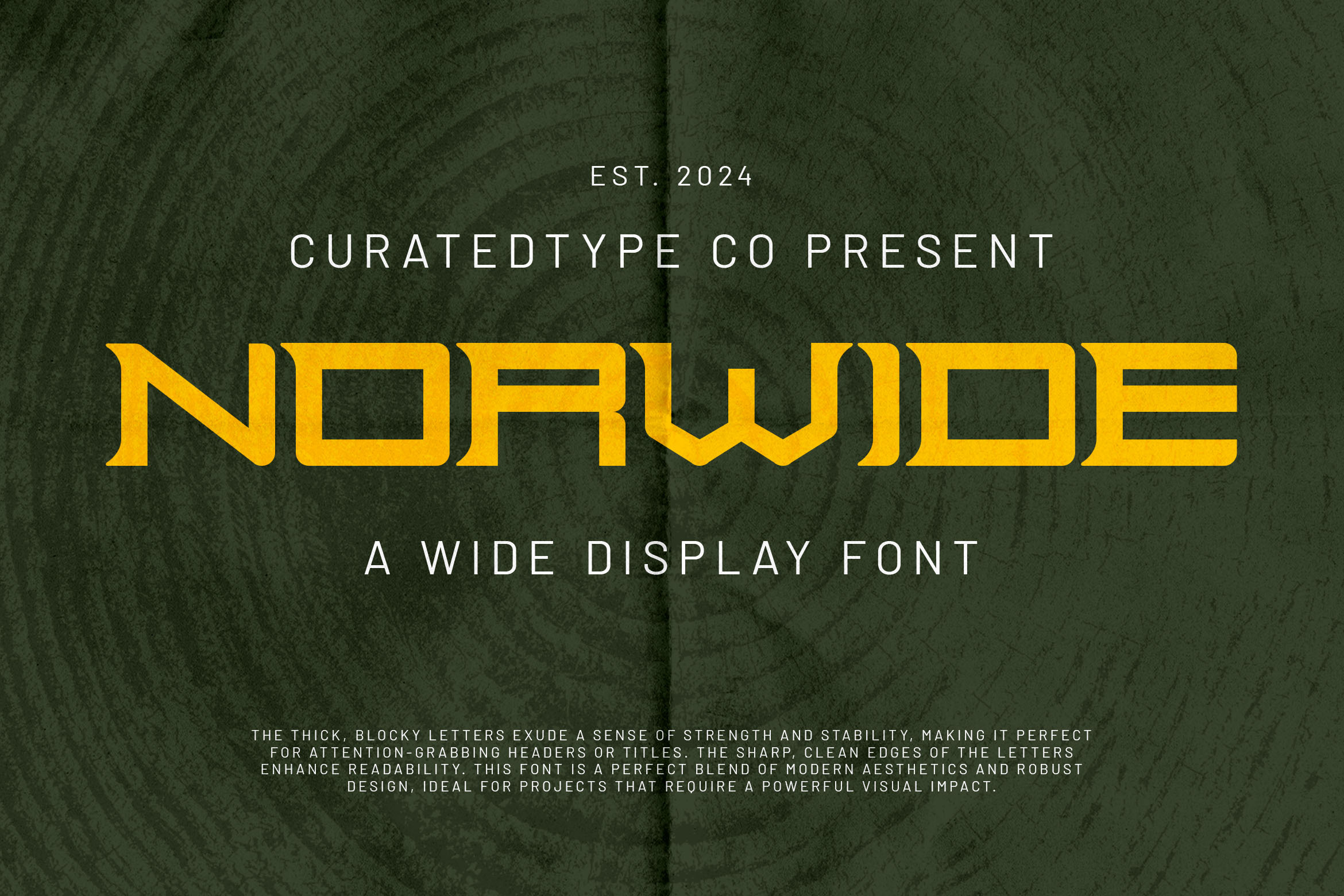
Norwide - Wide Display Font
Norwide is a expanded bold, sans-serif typeface that commands attention with its sharp geometric edges and distinctive cutouts. This contemporary design enhances readability while preserving a strong presence, making it ideal for headlines, logos, and modern branding projects. Its clean lines and sophisticated structure ensure that Norwide remains a powerful tool in any designer’s arsenal.
With its refined aesthetic, Norwide exudes confidence and style. The unique cutouts add a touch of creativity, setting it apart from more conventional typefaces. It commands attention with its bold character and geometric precision, making it perfect for impactful designs that need to stand out. Whether used in digital media, print, or advertising, Norwide promises to deliver a contemporary edge that is both dynamic and memorable.